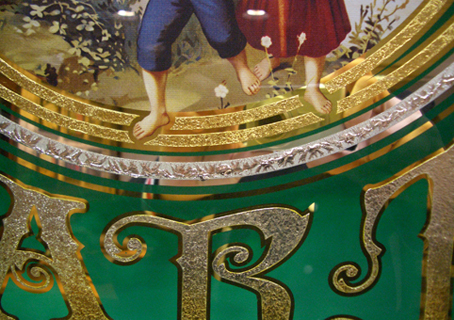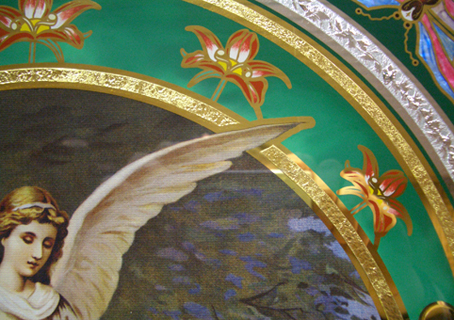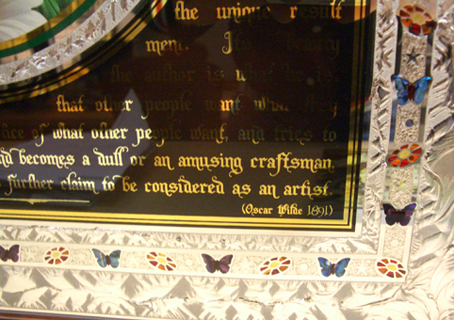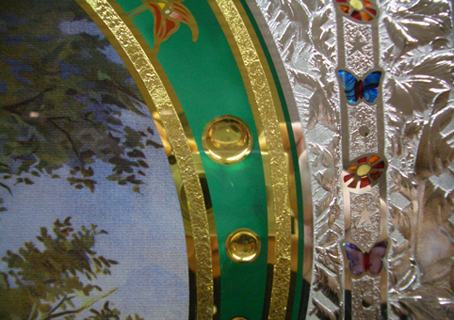
L'art pour L'art
L'art pour L'art/Art for Art sake.
An art, ideological and philosophical movement about art at the end of the 19th century.
Since I have seen the craftmanship of the reverse glass work, for the first time, I thought about this ideology.
In my personal opinion the craftmanship of the reverse glass embelishments should nowadays be stand on itself and not a way to reproduce signs of earlier dates.
Beautifully made designs of sigars, beer, chocolate and showcases of goldleaf craftmanship holds back the level of art this glass work can and must become.
No advertisement of a product, but just in itself sheer beauty.
Art for Art in it self; something to look at every day when waking up, when coming home.
Picturing the pleasure of life itself, nature, flowers, butterflies, love, (for some) faith and family.
In this design I tried to express my feelings and ideas.
You will enjoy looking at this everyday when you wake up.
All kidding aside, I wasn't so sure about the butterflies and flowers in the border but they turned out really nicely. I like the simplified version of the flowers. Are the canvas prints adhered to the glass or just mounted behind it?
Is all the shell coloured or did you mount it behind glazes?
Those turned out very nice. And I agree that reverse glass painting should be implemented into current art projects. I should enjoy a resurgence.
Wow :!: :!: Very nice work. I love that green it sets everything off very nicely. I, like Kelly, am curious about the flowers and the pictorial. How are they done? Those wing tips work into the gold and chipped area really well.
The flowers are tinted on the glass. It is the only way to give every single little leaf a different tone.
The little butterflies are done in tones as well (body and wings). The trick here is to keep the tint from melting down when applying the shells.
After a lot of thinking, studying and experimenting I came to the conclusion that glueing the painting behind the glass is the best way. Esspecially for this one, since this design needed an acurate placement within 0,5 mm.
Having it loose on the rear side would not work due to movement.
You said you had 500 hours in these and now I can see why. You made a fantastic clean sharp job.
I like those flowers very much.
It indeed took a lot of time to make these two panels.
But I only have time at night and during the weekend.
Plus I again made a lot of tests before using a new technique, that took a lot of time as well.
But without working hard and pushing: no good results.
Doing out of the box designs, could be the future for us.
P.s. I did one without text remember?.... The one with the silvered curlies on a black background. Don't tell anybody: it was based on an Rawson & Evans oldy. Did not felt history for me, just sweatdrops on my forehead and relief when they were finished :D